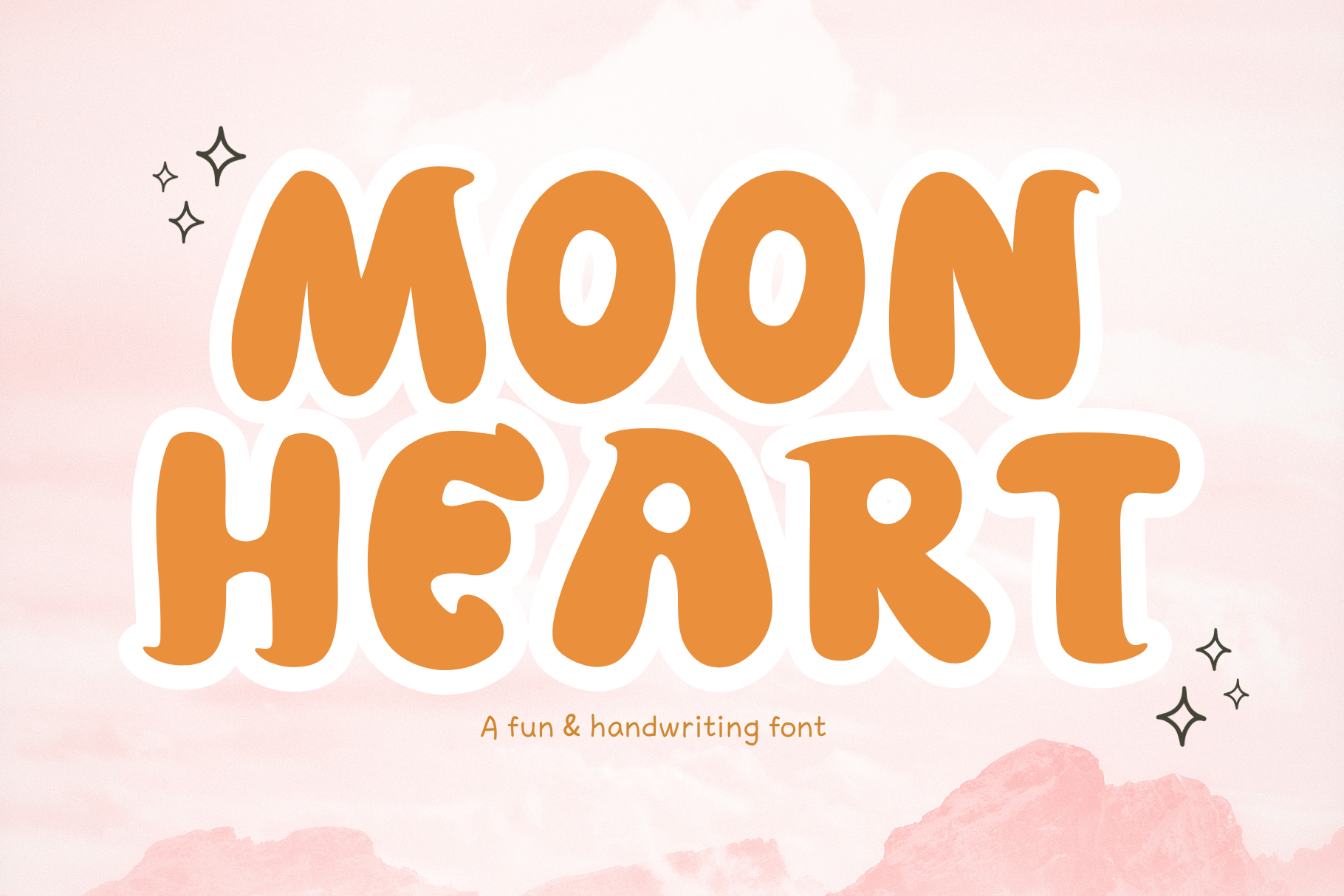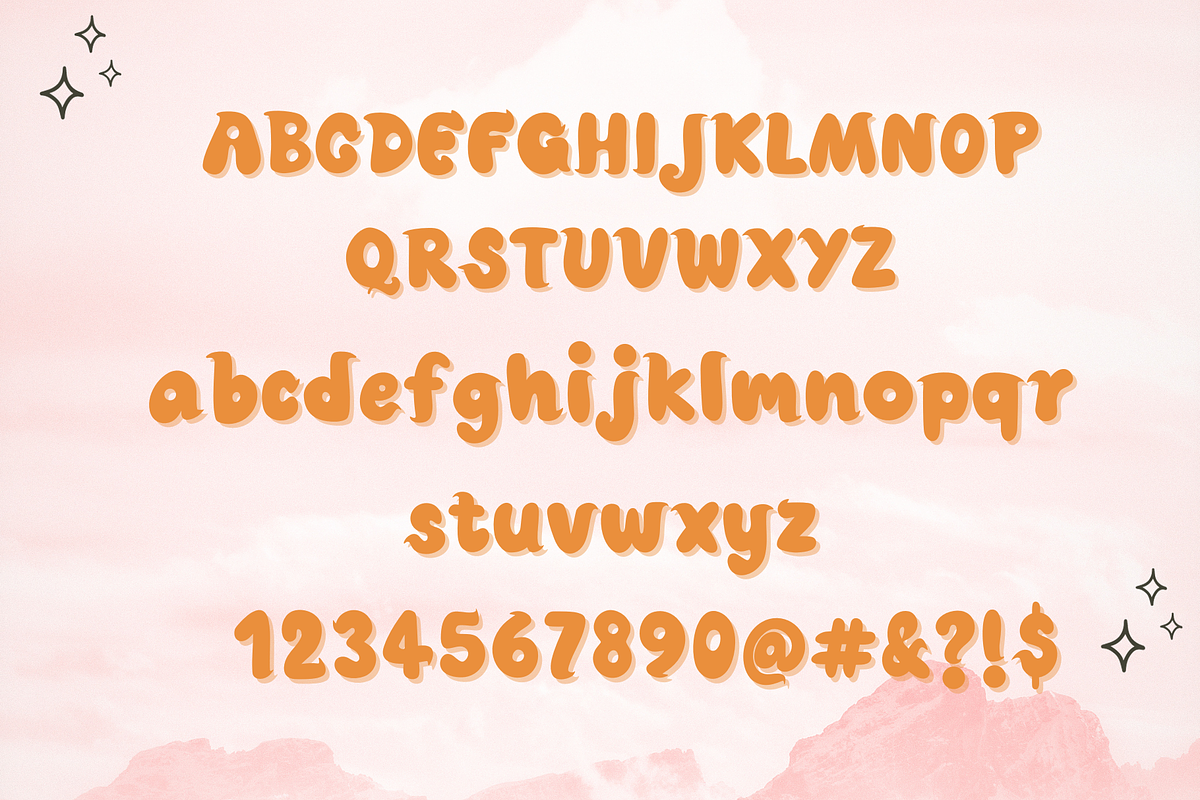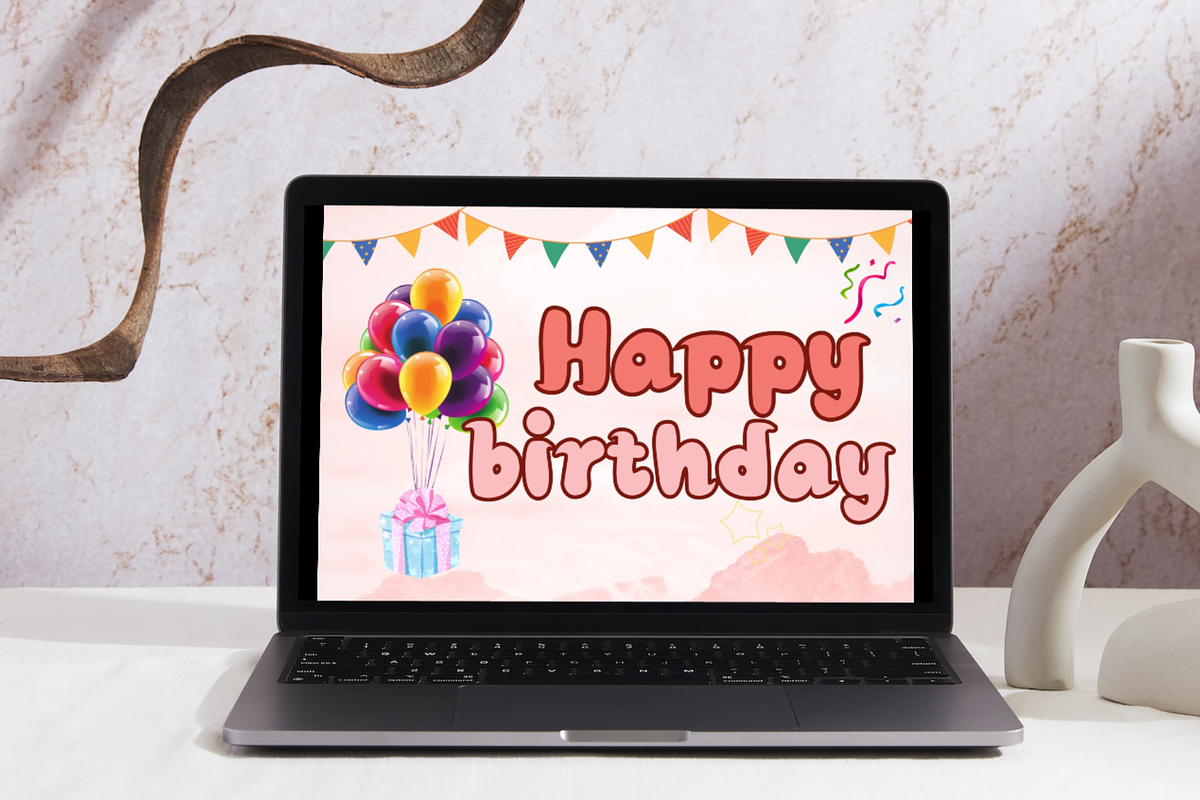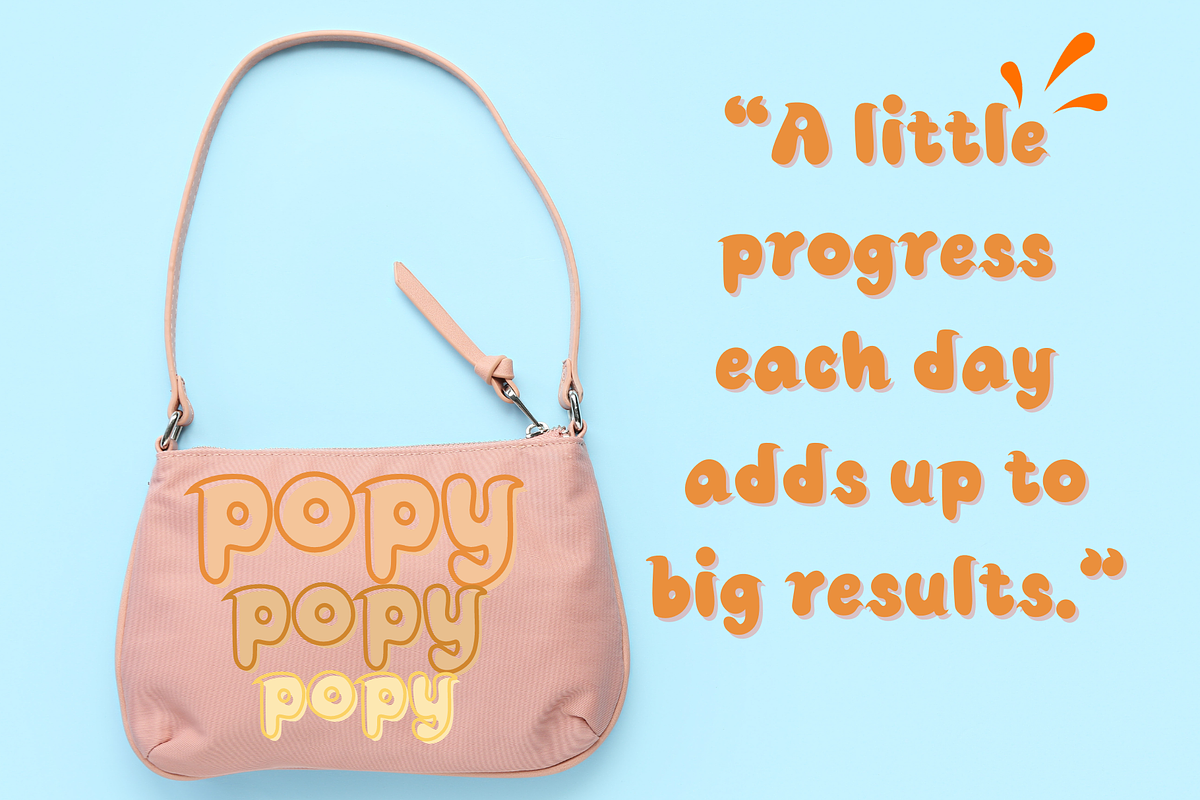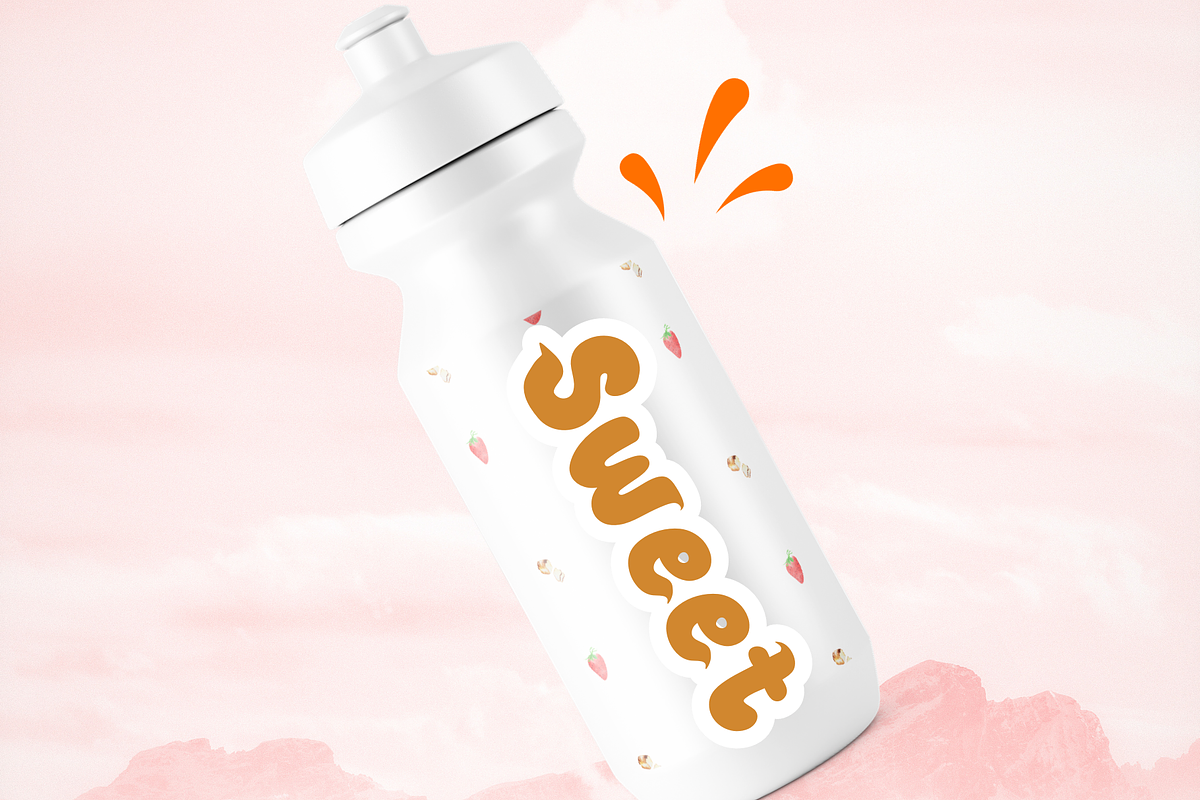
Moon heart font
🌙Moon heart a fun & handwriting font.An adorable decorative font that hides sweetness and charm, making your design work captivating and charming. The curved edges of the letters add an extra touch of loveliness.